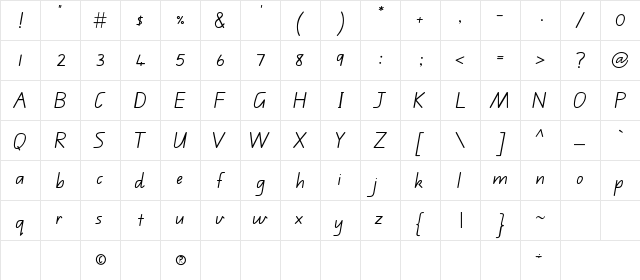
QLD Regular Font Preview
QLD Regular
Design Context for QLD Typeface
QLD offers clean, dependable letterforms without strong stylistic allegiance, making it a practical choice for designers who need flexibility.